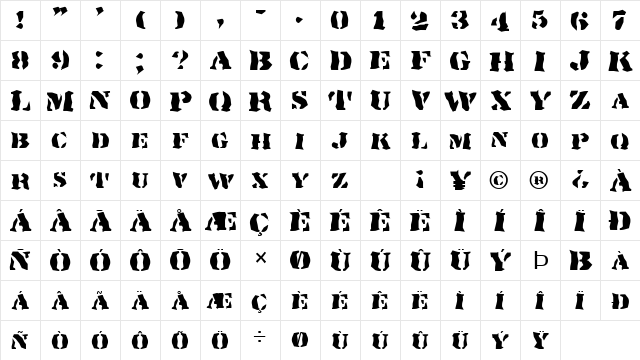
FZ WACKY 17 Normal Font Preview
FZ WACKY 17 Normal
Design Context for FZ WACKY 17 Typeface
FZ WACKY 17 is a composed and adaptable typeface that performs quietly and consistently across a wide range of design contexts.
Pro Tip: Use FZ WACKY 17 in both headline and body roles to test its range before committing to a single application.